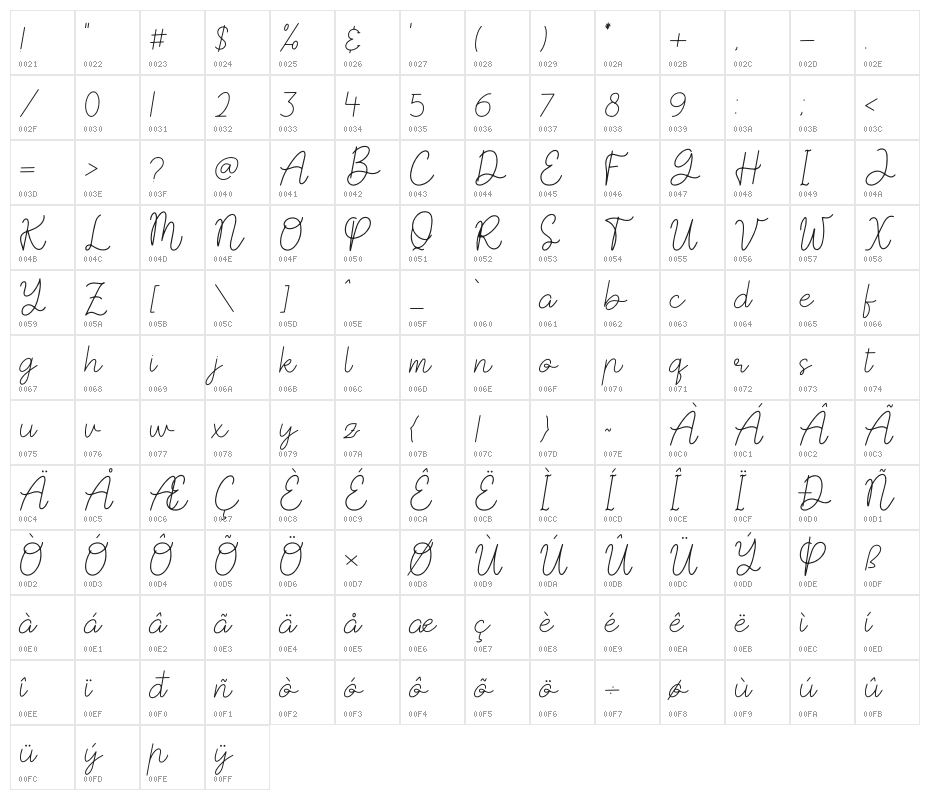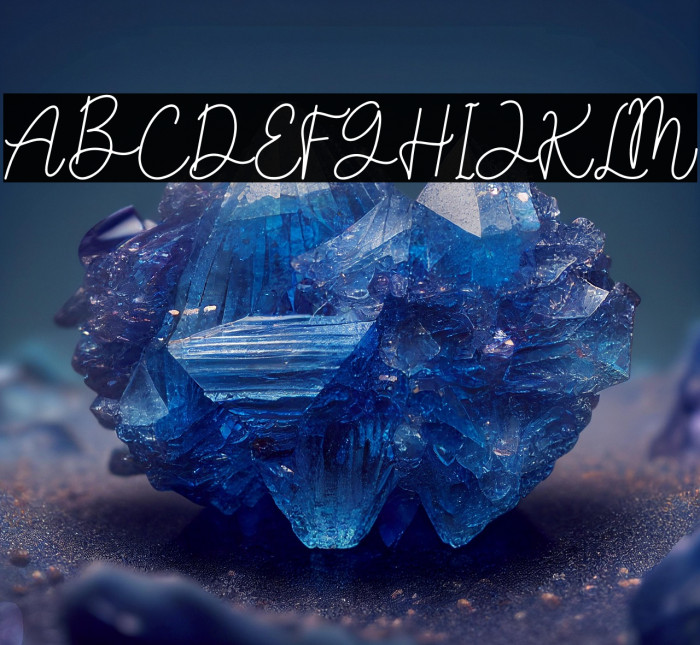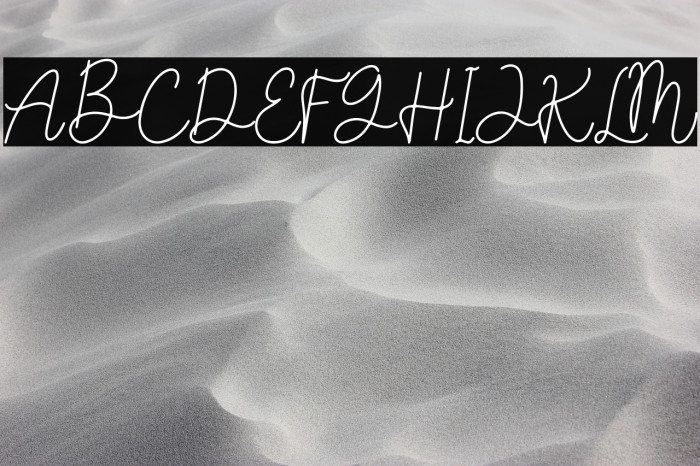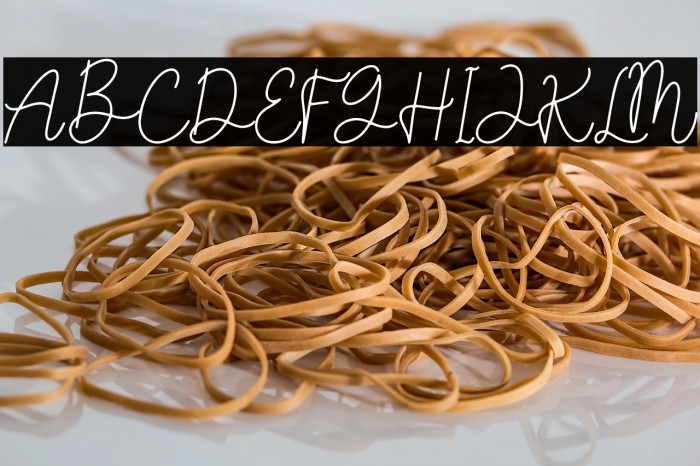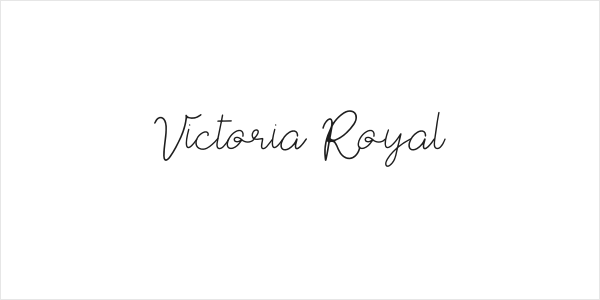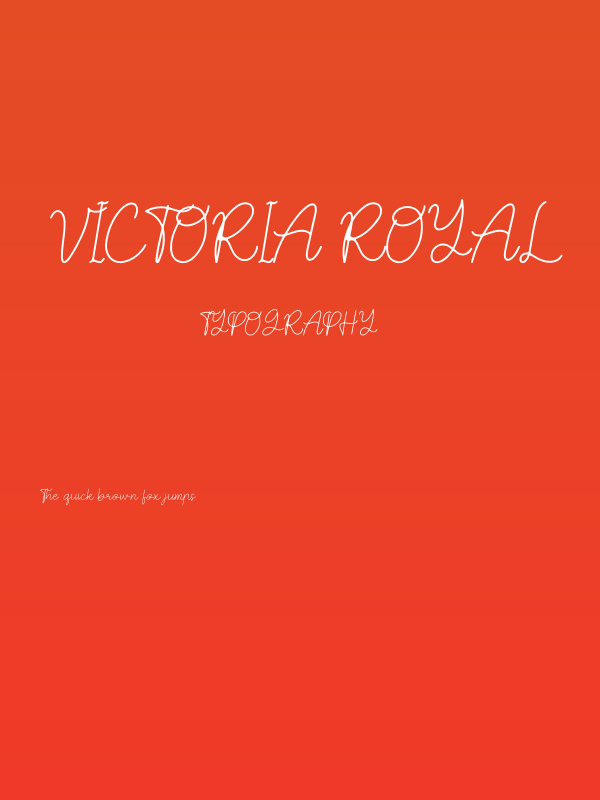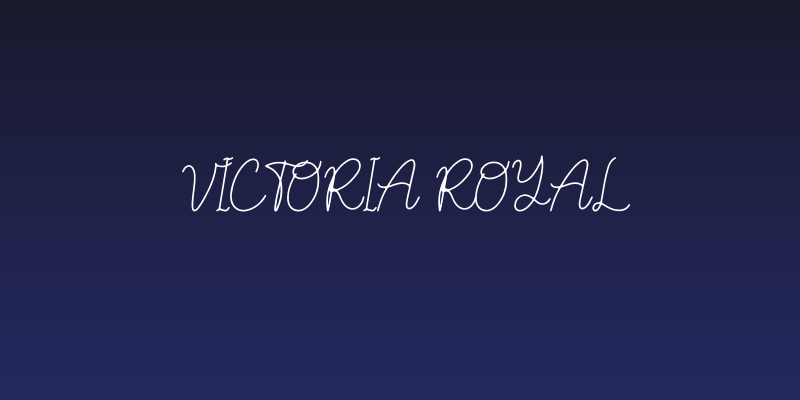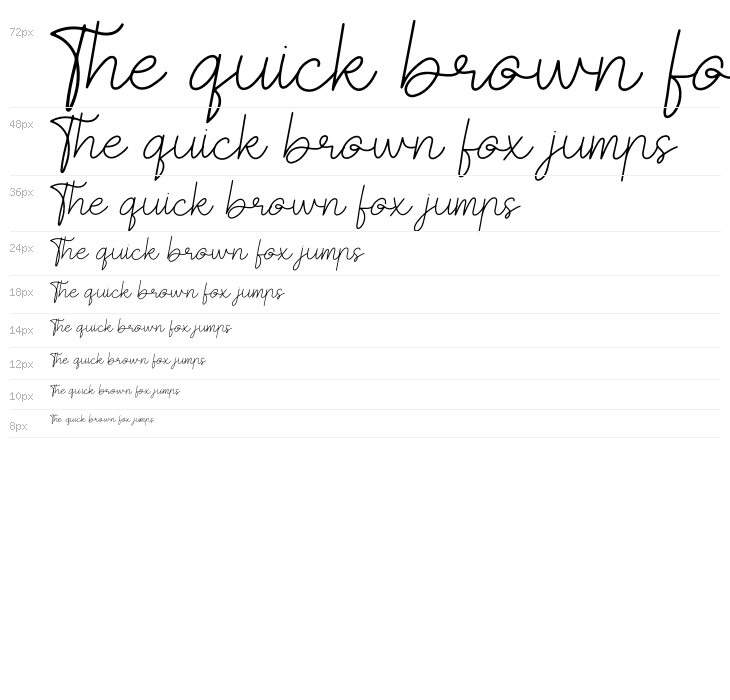
Victoria Royal Font
Victoria Royal Description
This font exudes elegance and fluidity, characterized by its cursive, handwritten style. The letters are interconnected, creating a seamless flow that mimics natural handwriting. The uppercase letters maintain a consistent height, while the lowercase letters exhibit gentle loops and curves, adding a touch of sophistication. The numerals are clear and legible, complementing the overall aesthetic. Special characters are gracefully integrated, maintaining the font's cohesive look. The strokes are consistent in thickness, providing a balanced appearance that is both stylish and readable.
| Overall Style | Elegant, Handwritten |
| Use Case | Invitations, Branding, Greeting Cards |
| Proposed Projects | Ideal for wedding invitations, personal branding, greeting cards, and elegant packaging designs. |